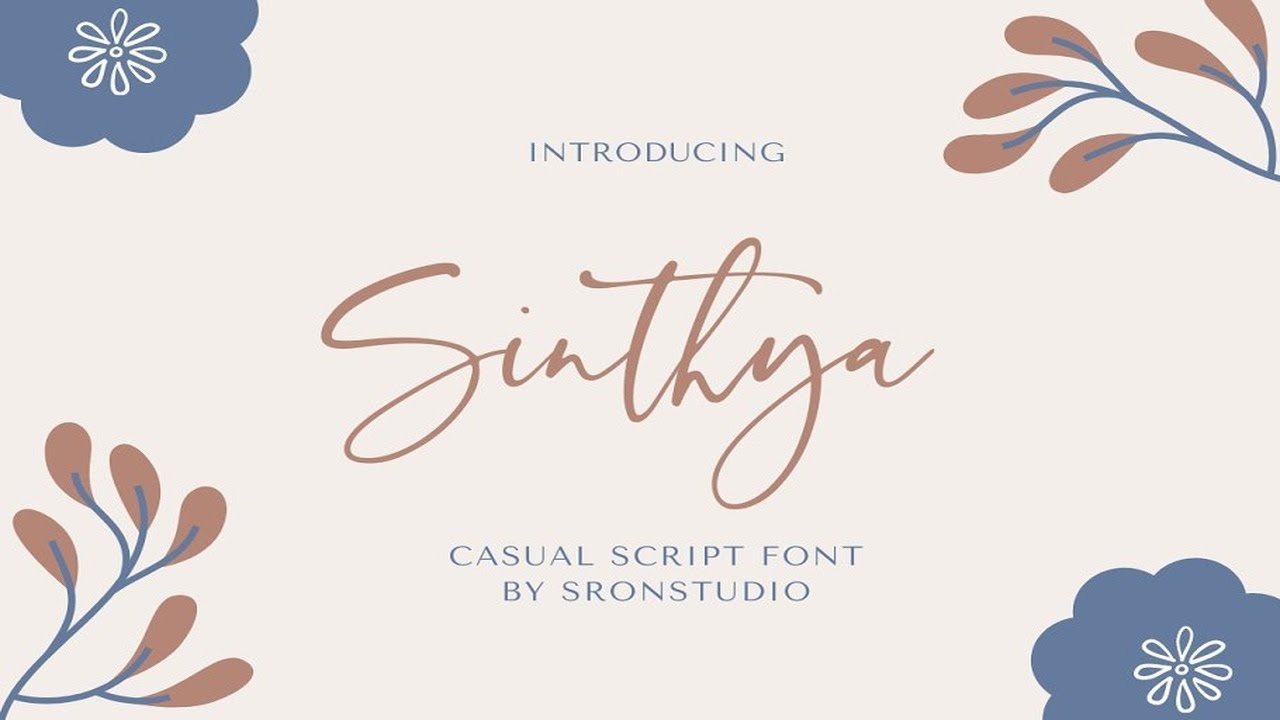
Sinthya Font Dafont Note: this demo font is for personal use only!. Sinthya font is a natural handwritten font perfect for many different design products. use this script to put a signature touch on your design project.
Sinthya Font Dafont Archive of freely downloadable fonts. browse by alphabetical listing, by style, by author or by popularity. Download and install free sinthya script font. this font is from handwritten category and exclusively available at dafont free. Download sinthya script font · free for personal use · sinthya feels equally charming and elegant. this stunning handwritten font is a stylish homage to classic calligraphy. Download sinthya font for windows and mac. sinthya font was designed by sronstudio and has been downloaded 1,661 times.
Sinthya Font Free Download Fontaza Download sinthya script font · free for personal use · sinthya feels equally charming and elegant. this stunning handwritten font is a stylish homage to classic calligraphy. Download sinthya font for windows and mac. sinthya font was designed by sronstudio and has been downloaded 1,661 times. Download free sinthya font, view its character map and generate text based images or logos with sinthya font online. Download sinthya font from free cdn or use it on your website as webfont. Download sinthya font for pc mac for free, take a test drive and see the entire character set. moreover, you can embed it to your website with @font face support. Sinthya is a delicate and lovely handwritten script font with a natural signature feel. this script typeface was created and released by sronstudio.
Sinthya Font Free Download Fontaza Download free sinthya font, view its character map and generate text based images or logos with sinthya font online. Download sinthya font from free cdn or use it on your website as webfont. Download sinthya font for pc mac for free, take a test drive and see the entire character set. moreover, you can embed it to your website with @font face support. Sinthya is a delicate and lovely handwritten script font with a natural signature feel. this script typeface was created and released by sronstudio.
Sinthya Font Free Download Fontaza Download sinthya font for pc mac for free, take a test drive and see the entire character set. moreover, you can embed it to your website with @font face support. Sinthya is a delicate and lovely handwritten script font with a natural signature feel. this script typeface was created and released by sronstudio.